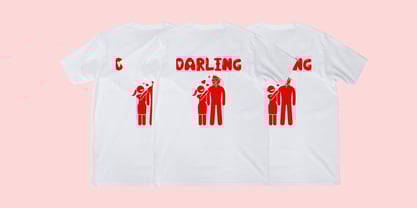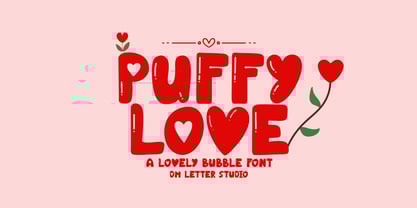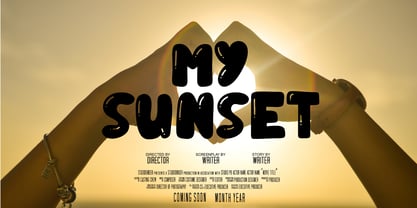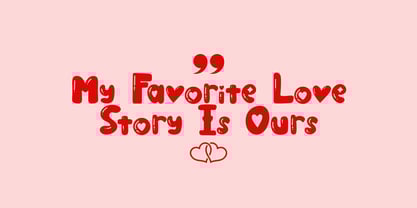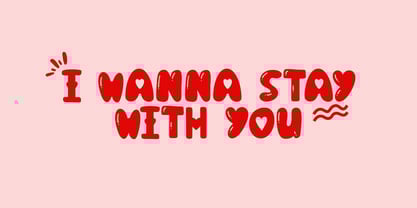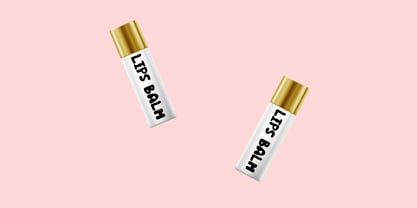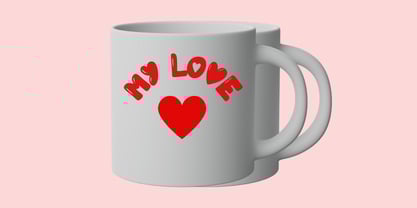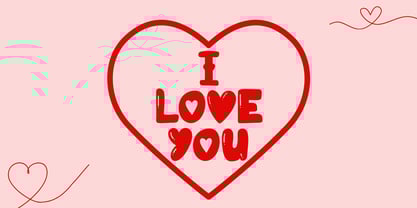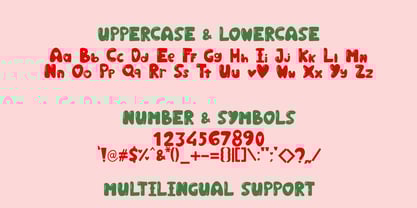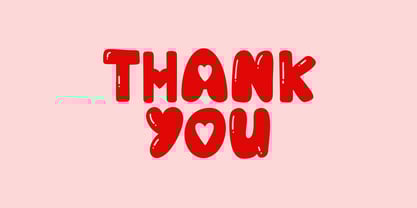
Puffy Love
The Puffy Love Font Family was designed by Dimas Prasetyo and published by DM Studio. Puffy Love contains 1 styles.
Puffy Love – A Lovely Bubble Handwritten Font
Puffy Love is a charming and bubbly handwritten font filled with warmth, softness, and playful vibes. With rounded edges and a slightly puffy feel, this font captures the innocence of doodles and the fun of hand-drawn lettering. It’s perfect for Valentine’s cards, kid-themed designs, cute logos, love notes, stickers, and more. Whether you're designing for affection or just want to keep it light and sweet—Puffy Love delivers.
Features:
• Bubble-Like Lettering: Rounded, inflated shapes give a soft and lovable look.
• Perfect for Cute Projects: Ideal for love notes, kids’ prints, stationery, and girly branding.
• Playful Handwriting Style: Keeps the tone friendly, casual, and sweet.
• Complete Character Set: Includes uppercase, lowercase, numbers, punctuation, and multilingual support.